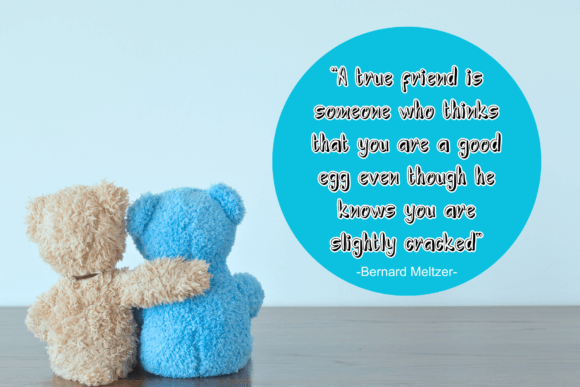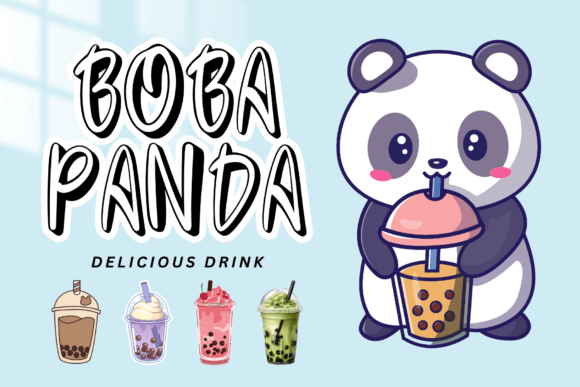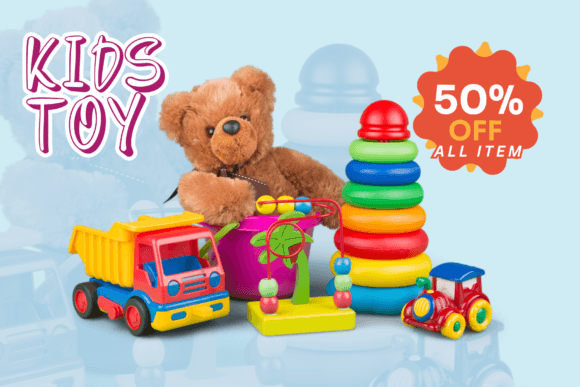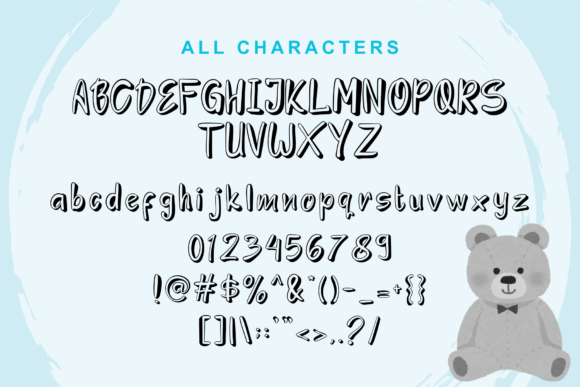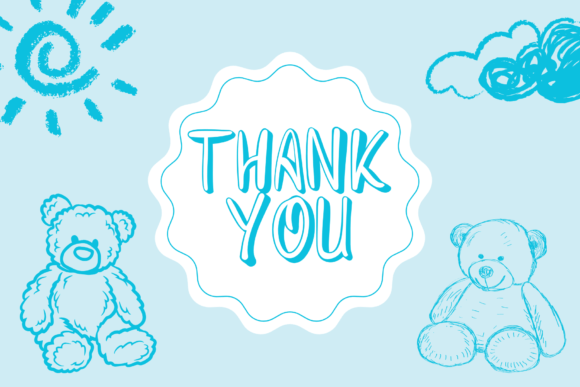
Bear Brown Font: Unleash Your Creativity with this Stylish Display Font
Are you tired of using the same old fonts in your designs? Look no further than the Bear Brown Font, a charismatic and stylish display font that’s sure to take your artistic endeavors to the next level. With its funky and cool vibe, this typeface is the perfect addition to your font arsenal, offering versatility and creativity that will make your designs stand out from the crowd.
The Charismatic Charm of Bear Brown Font
Bear Brown Font is a dynamic and eye-catching font that’s designed to make a statement. Its unique and stylish design makes it perfect for a wide range of creative projects, from branding and advertising to packaging and digital media. Whether you’re a designer, crafters, or DIY enthusiast, this font is sure to inspire your creativity and help you to create something truly special.
One of the standout features of Bear Brown Font is its incredible versatility. This font can be used for a wide range of projects, from bold and colorful designs to more subtle and sophisticated ones. Its dynamic design makes it perfect for headlines, titles, and other display text, while its clean and legible lines ensure that it’s easy to read and understand.
Pushing the Boundaries of Creativity
Bear Brown Font is more than just a font – it’s a tool for creative expression. Its unique design and versatility make it the perfect choice for designers and crafters who want to push the boundaries of what’s possible. Whether you’re looking to create a bold and eye-catching design or a more subtle and sophisticated one, this font is sure to inspire your creativity and help you to achieve your goals.
Bear Brown Font is a must-have for designers and crafters who want to take their creative projects to the next level. Its stylish and dynamic design makes it perfect for a wide range of projects, from digital media and advertising to packaging and branding. With its incredible versatility and creative possibilities, this font is sure to become a staple in your design toolkit.
Key Features of Bear Brown Font
- Stylish and dynamic design: Bear Brown Font features a unique and stylish design that’s sure to make your designs stand out from the crowd.
- Incredible versatility: This font can be used for a wide range of projects, from bold and colorful designs to more subtle and sophisticated ones.
- Clean and legible lines: Bear Brown Font features clean and legible lines that make it easy to read and understand.
- Perfect for display text: This font is perfect for headlines, titles, and other display text, making it a great choice for designers and crafters.
Tips for Using Bear Brown Font
Here are a few tips for using Bear Brown Font in your designs:
- Use it for headlines and titles: Bear Brown Font is perfect for headlines and titles, making it a great choice for designers and crafters who want to create bold and eye-catching designs.
- Experiment with different colors: This font looks great in a wide range of colors, so don’t be afraid to experiment and find the perfect color for your design.
- Pair it with other fonts: Bear Brown Font can be paired with other fonts to create a unique and stylish design.